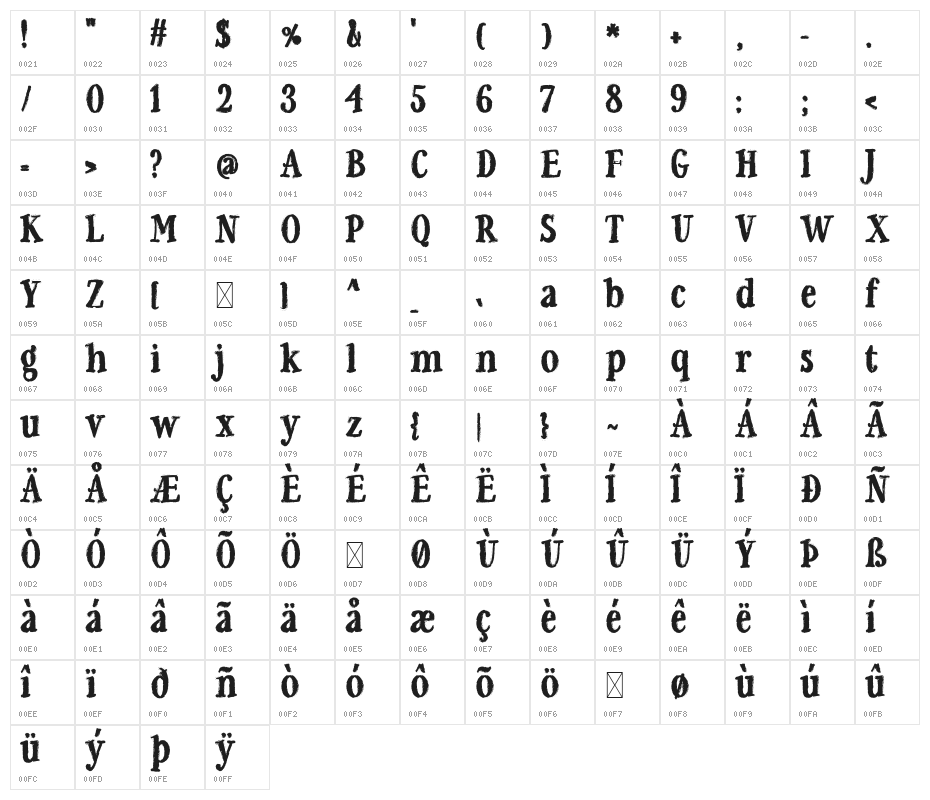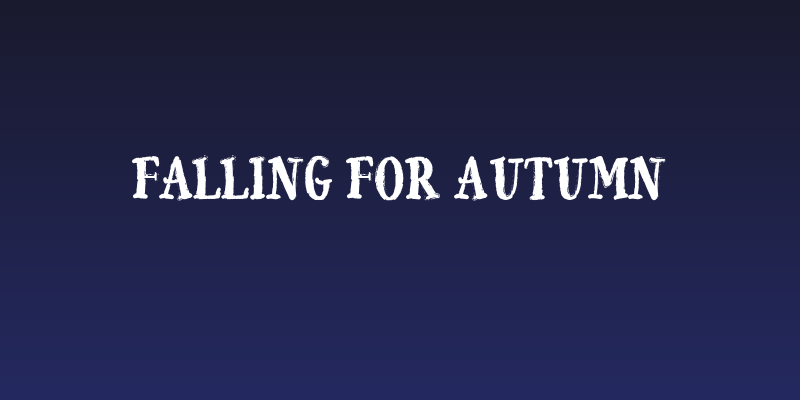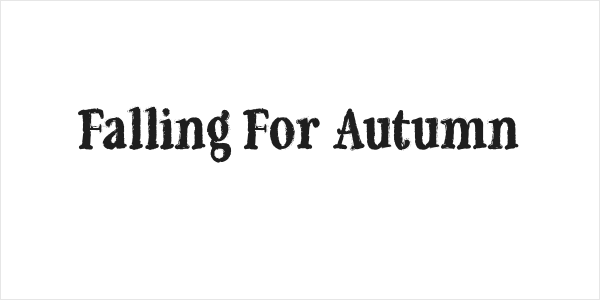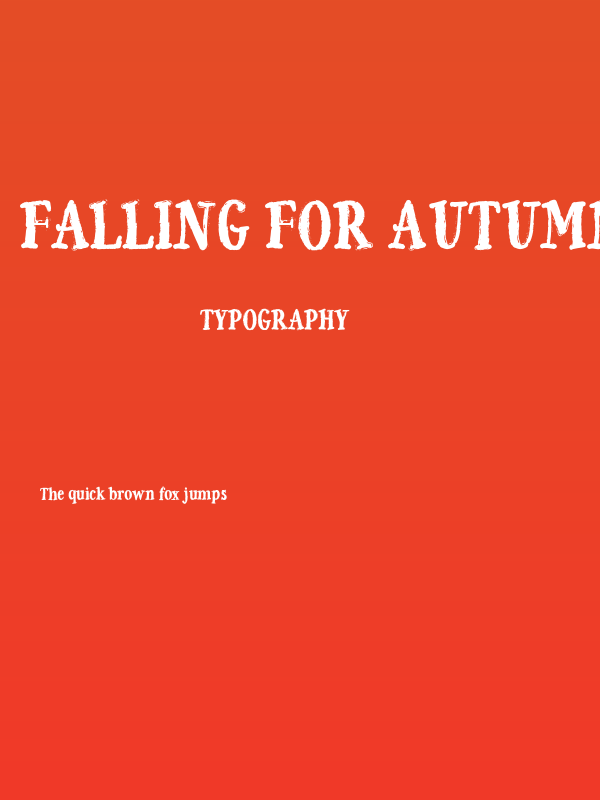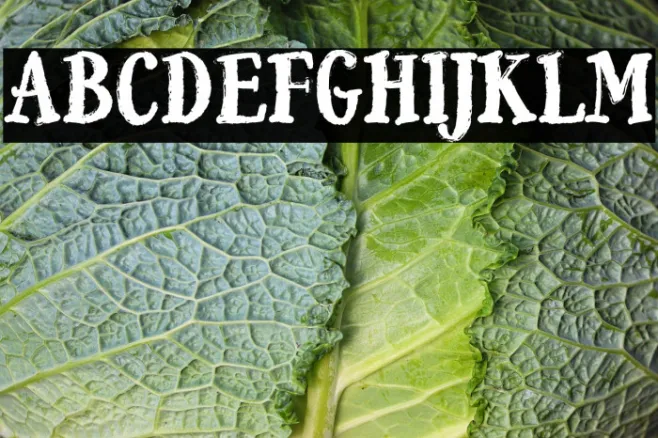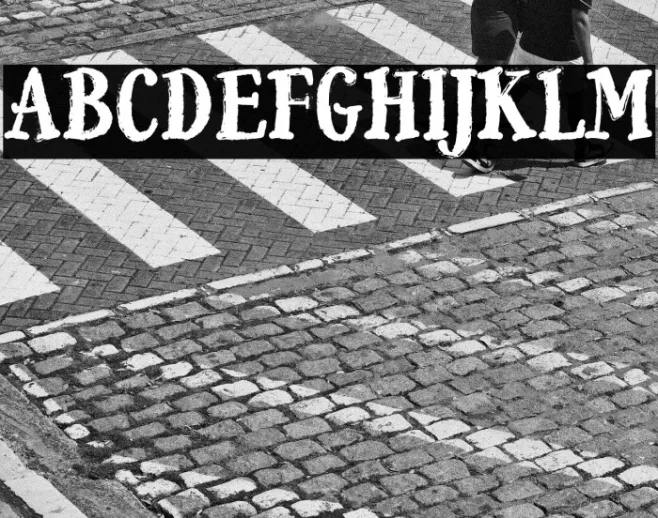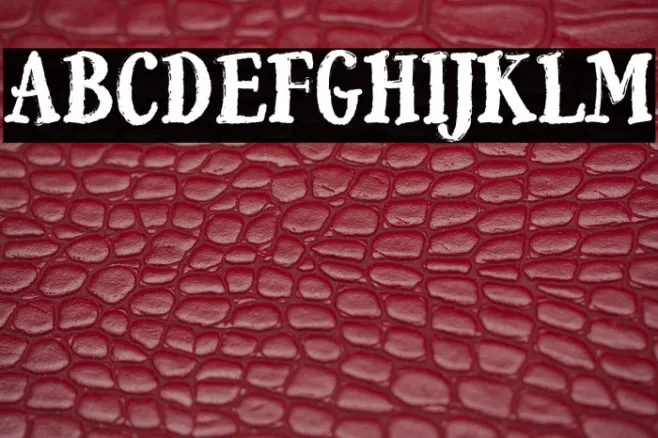
Falling For Autumn Font
Falling For Autumn Description
This font features a bold and textured style, reminiscent of vintage printmaking techniques. Each character is imbued with a hand-crafted feel, showcasing irregular edges and a slightly distressed appearance. The uppercase letters are robust and commanding, while the lowercase letters maintain a consistent weight, providing a harmonious balance. The numerals and special characters follow the same aesthetic, ensuring uniformity across all glyphs. This font exudes a rustic charm, making it ideal for projects that require a touch of nostalgia and warmth.
| Proposed Projects | Ideal for branding, packaging, posters, and any design project that seeks a rustic or vintage aesthetic. |